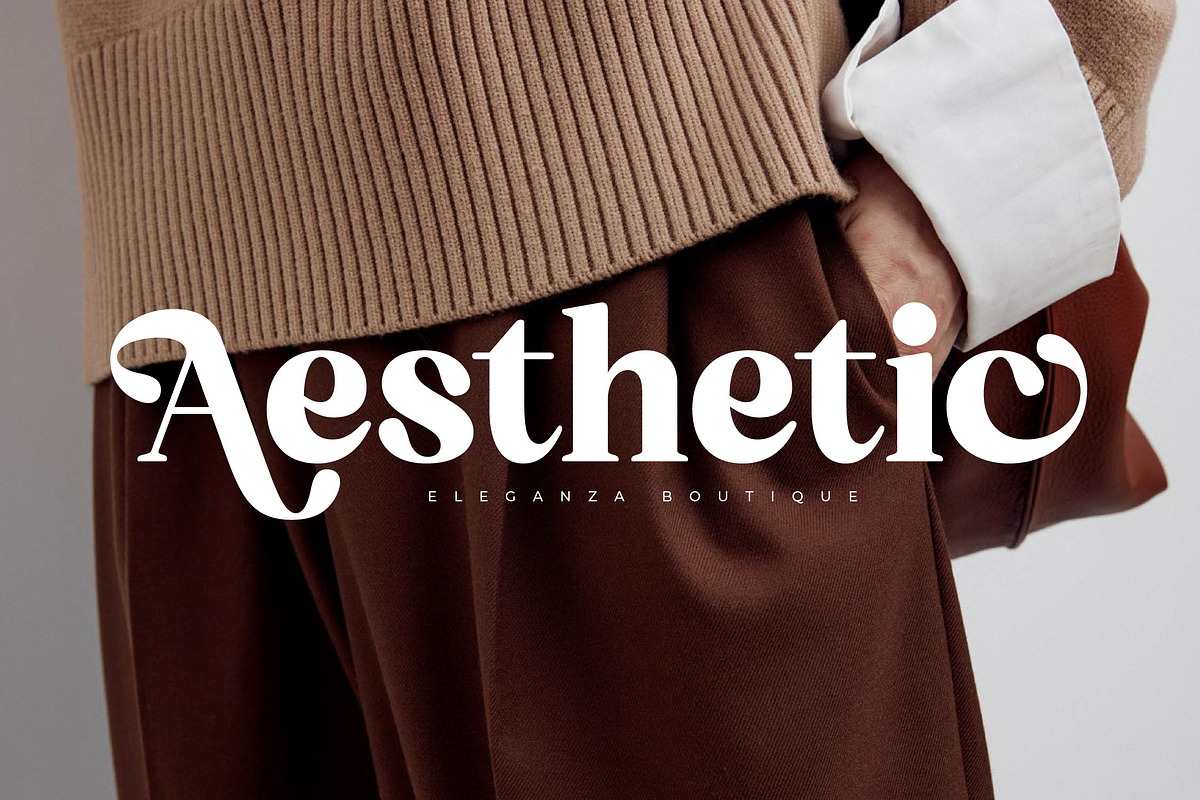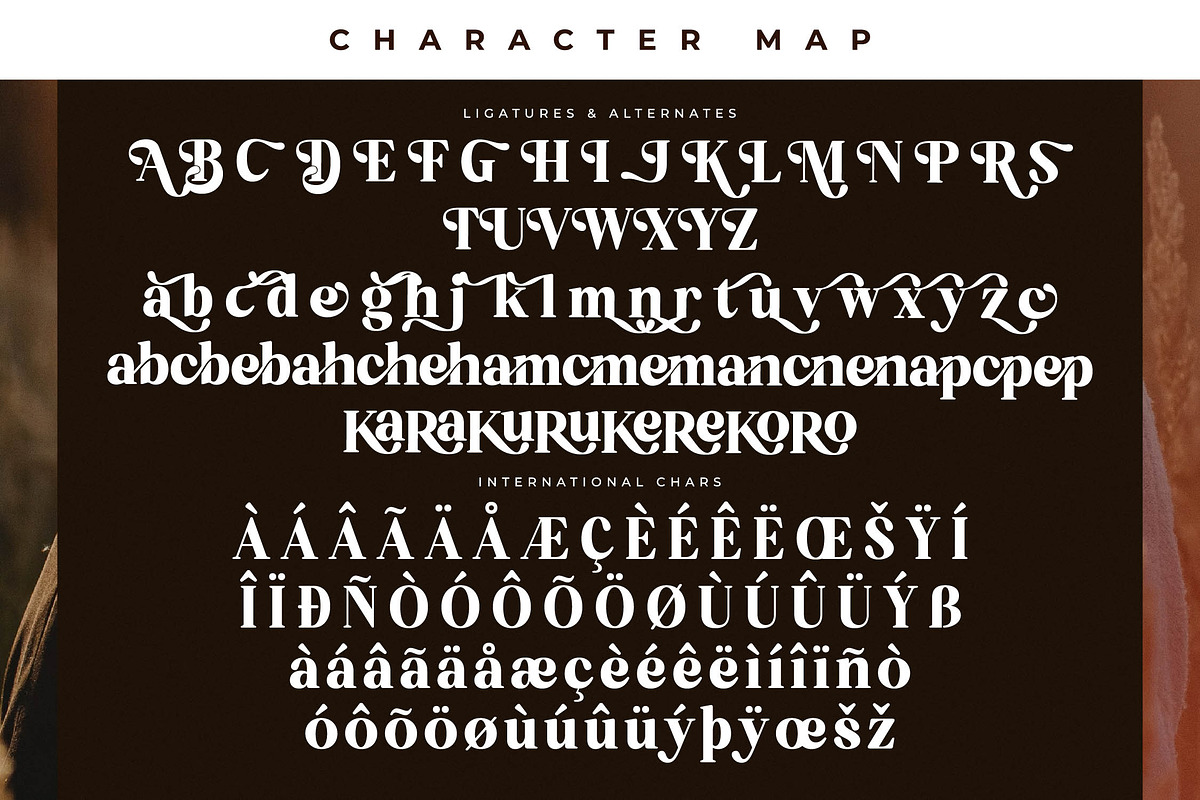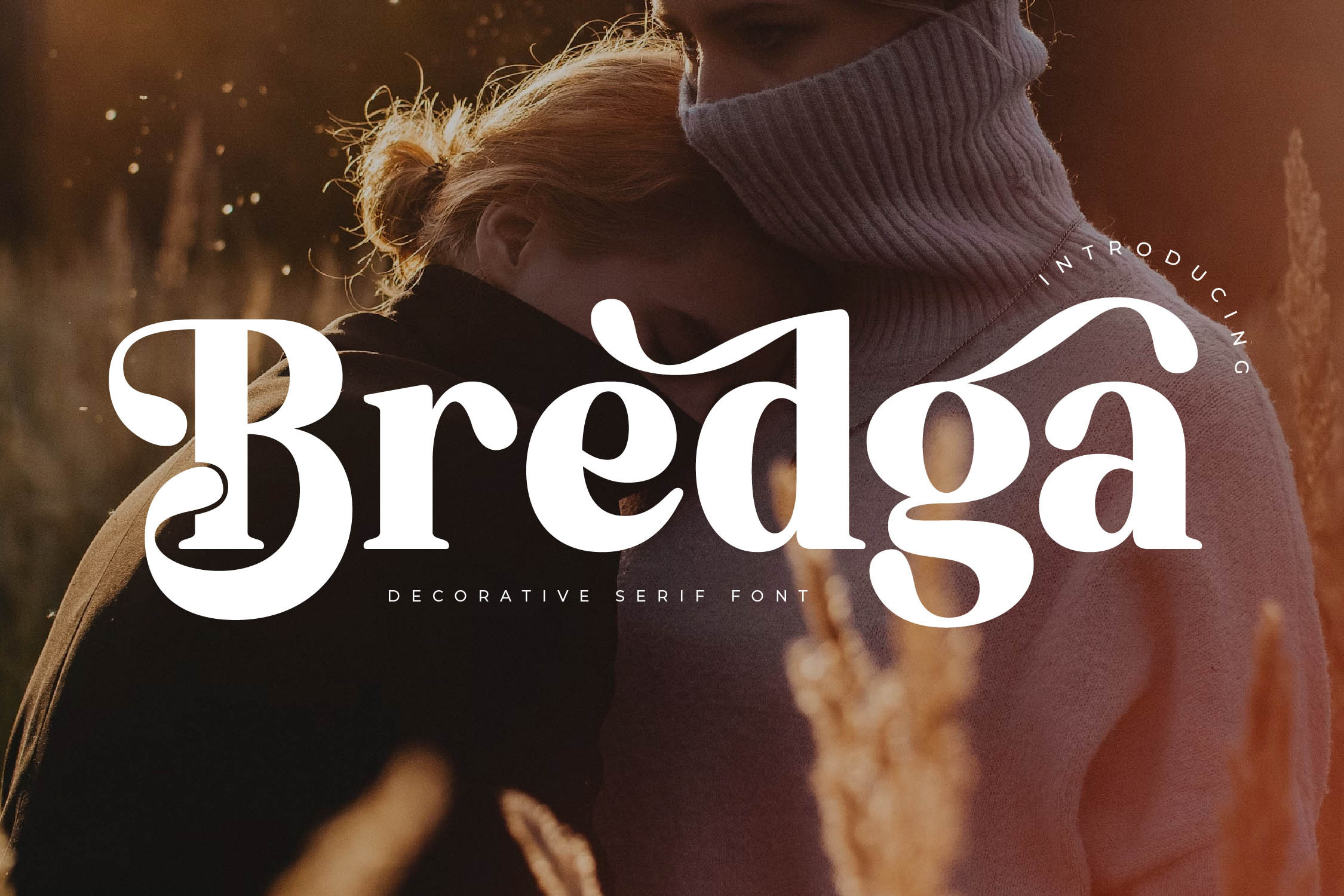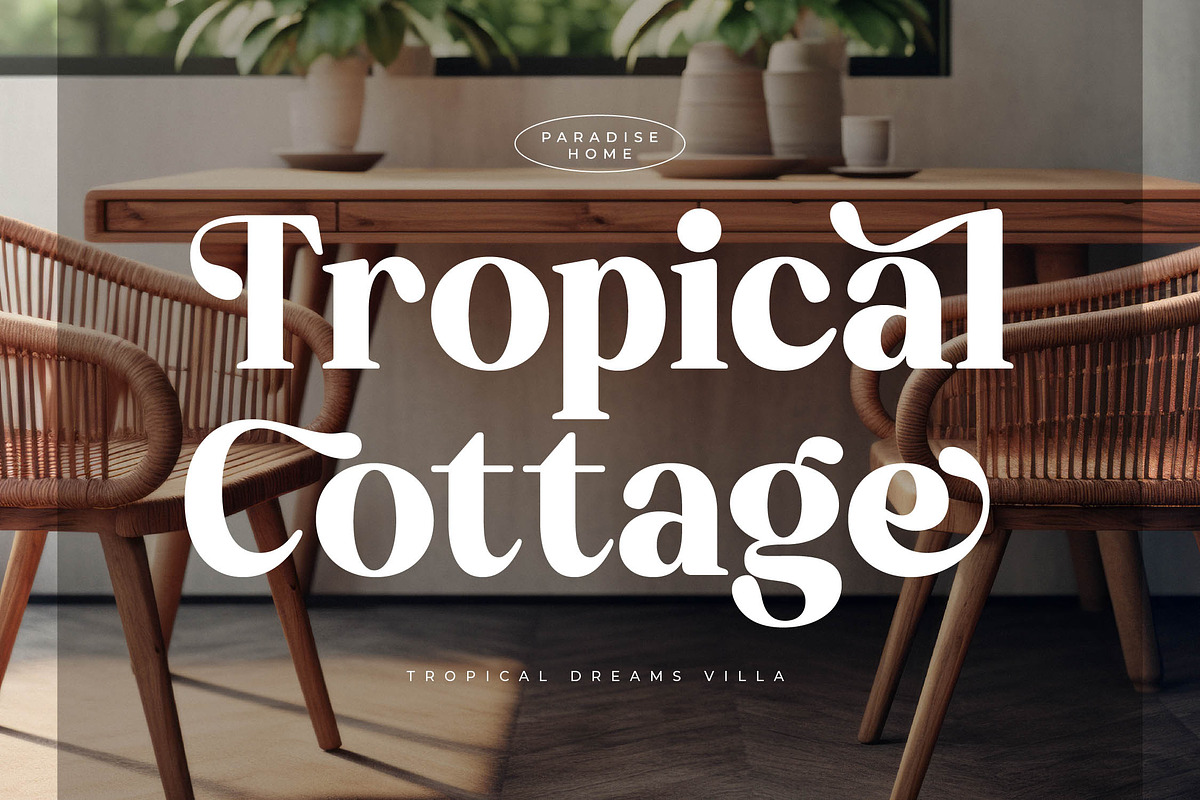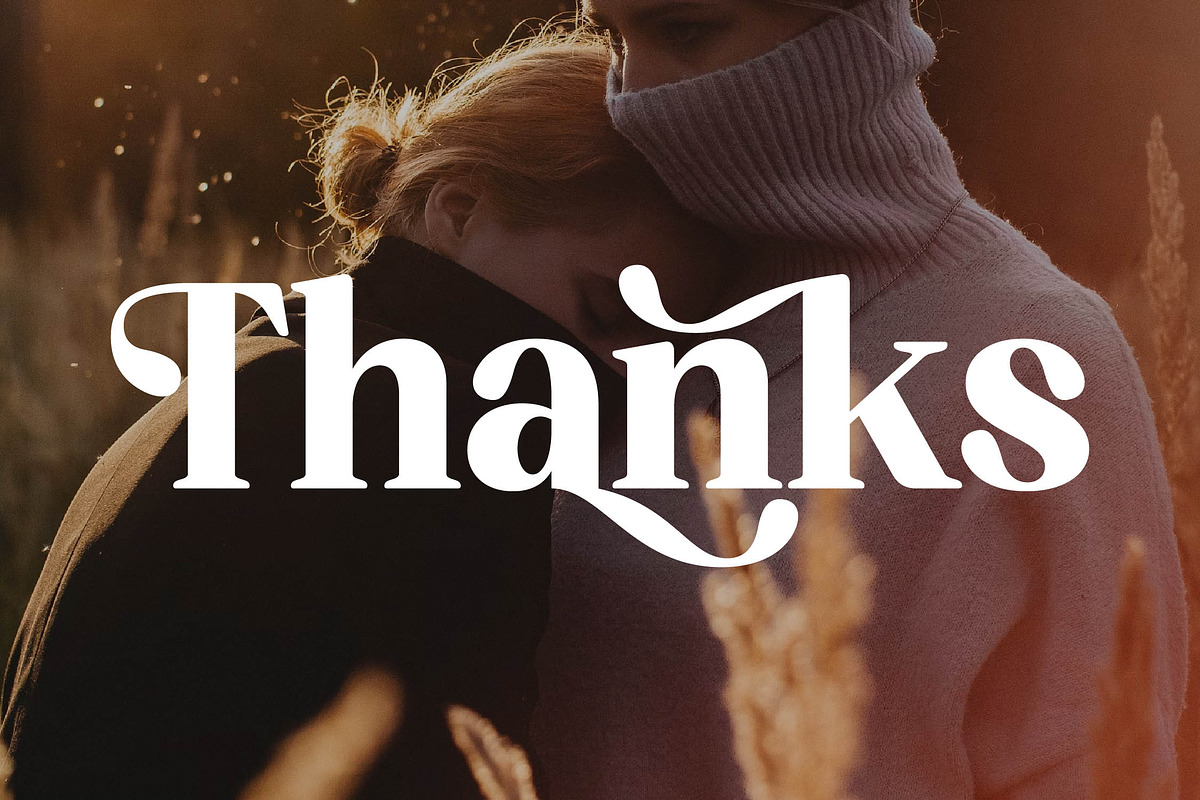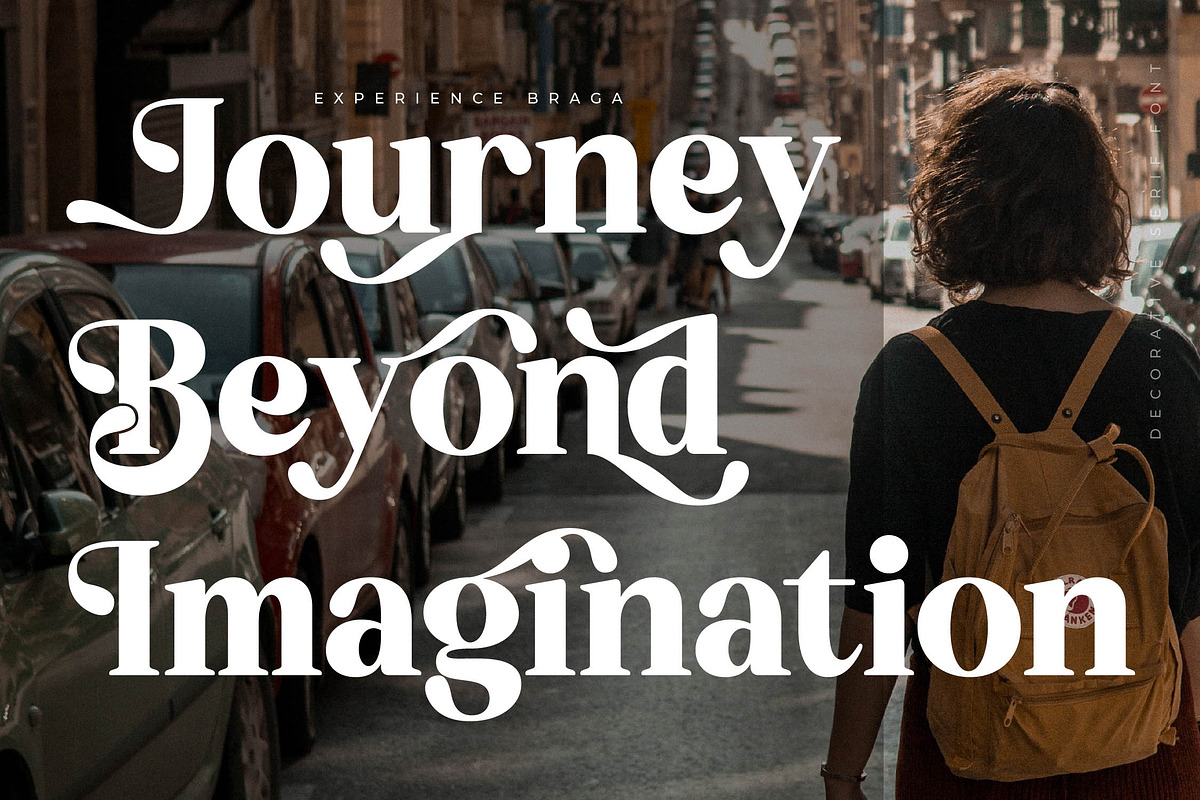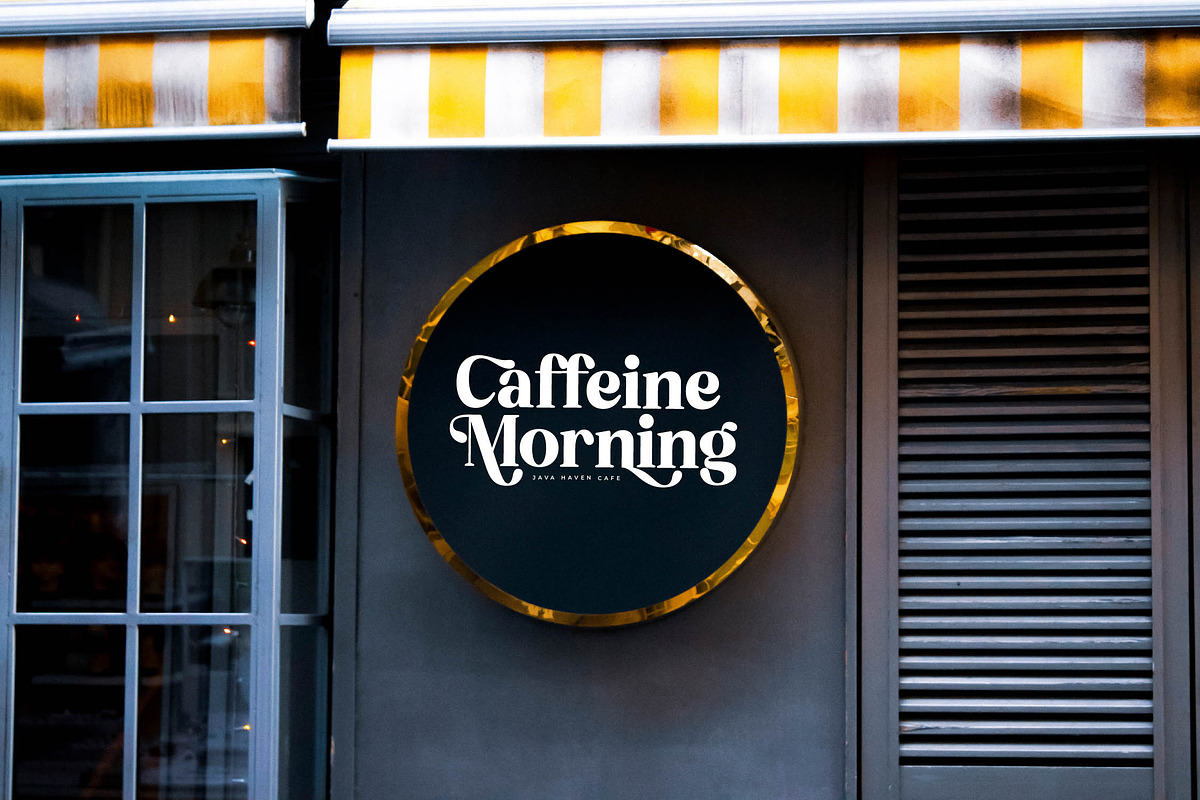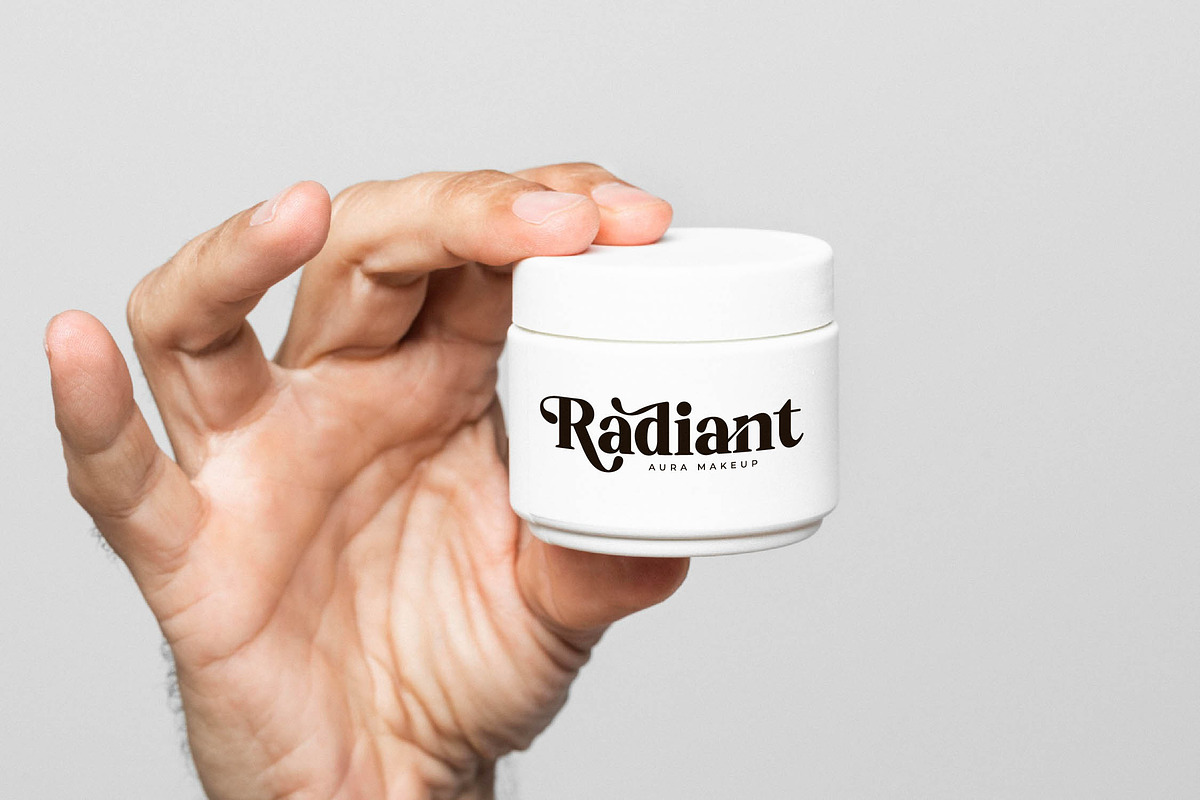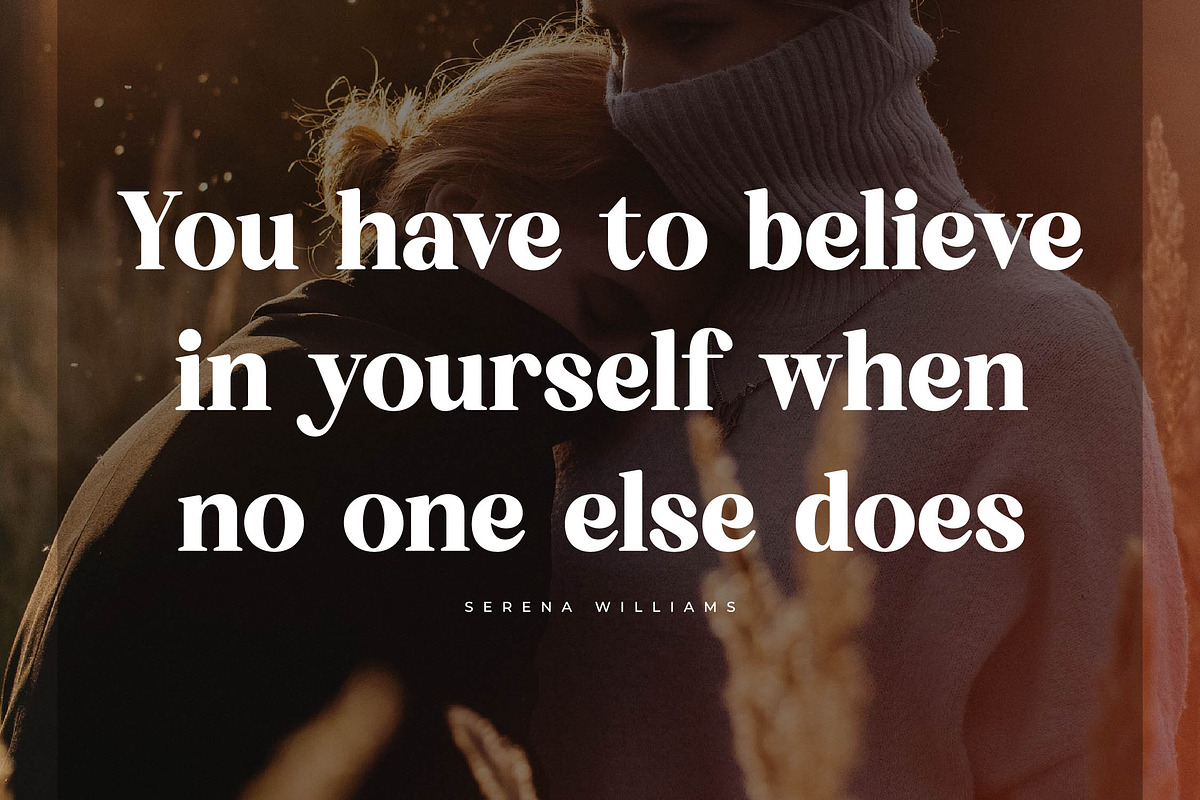
Bredga Decorative Serif Font
Bredga – Decorative Serif Font , from Letterena, is a Luxury Serif font, suitable for any projects such as: logos, branding projects, homeware designs, product packaging, mugs, quotes, posters, shopping bags, t-shirts, book covers, name card, invitation cards, greeting cards, label, photography, watermark, special events, and all your other luxury and beautiful projects that need a Luxury Serif taste.